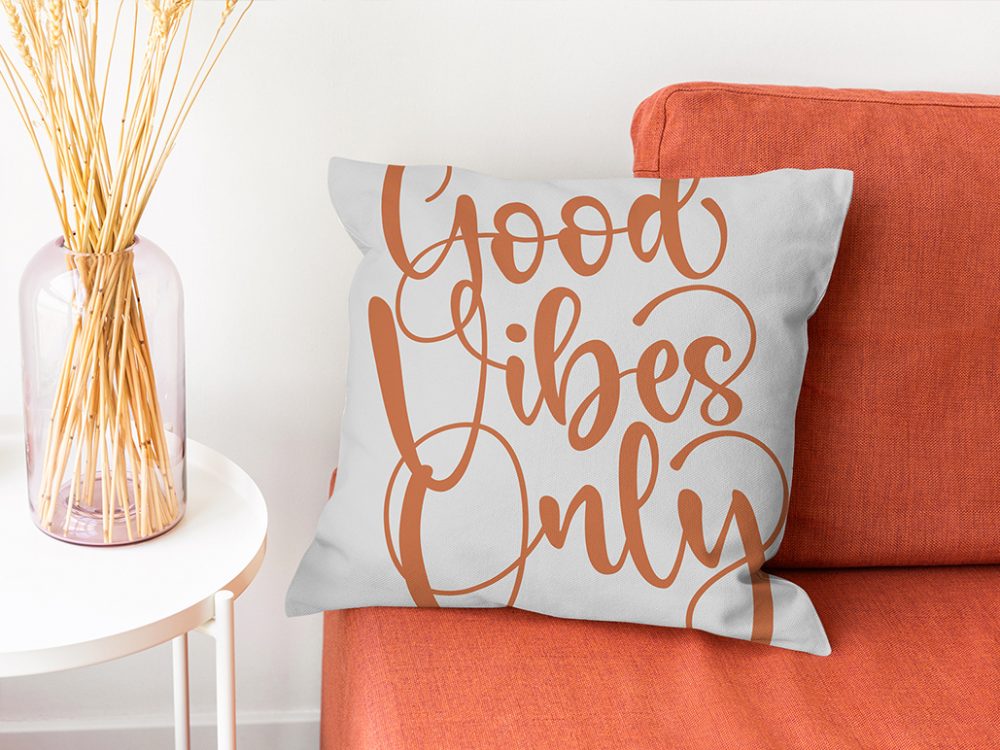
Buntan Script Free Font
Buntan Script Free Font is a beautiful handwritten font that simulates detailed brush writing and is very suitable for creating various design projects that require a scripted font. These can be posters, invitations, cards, branding, flyer prints, etc. If you wish to access more features and use them for commercial work please buy the full version.